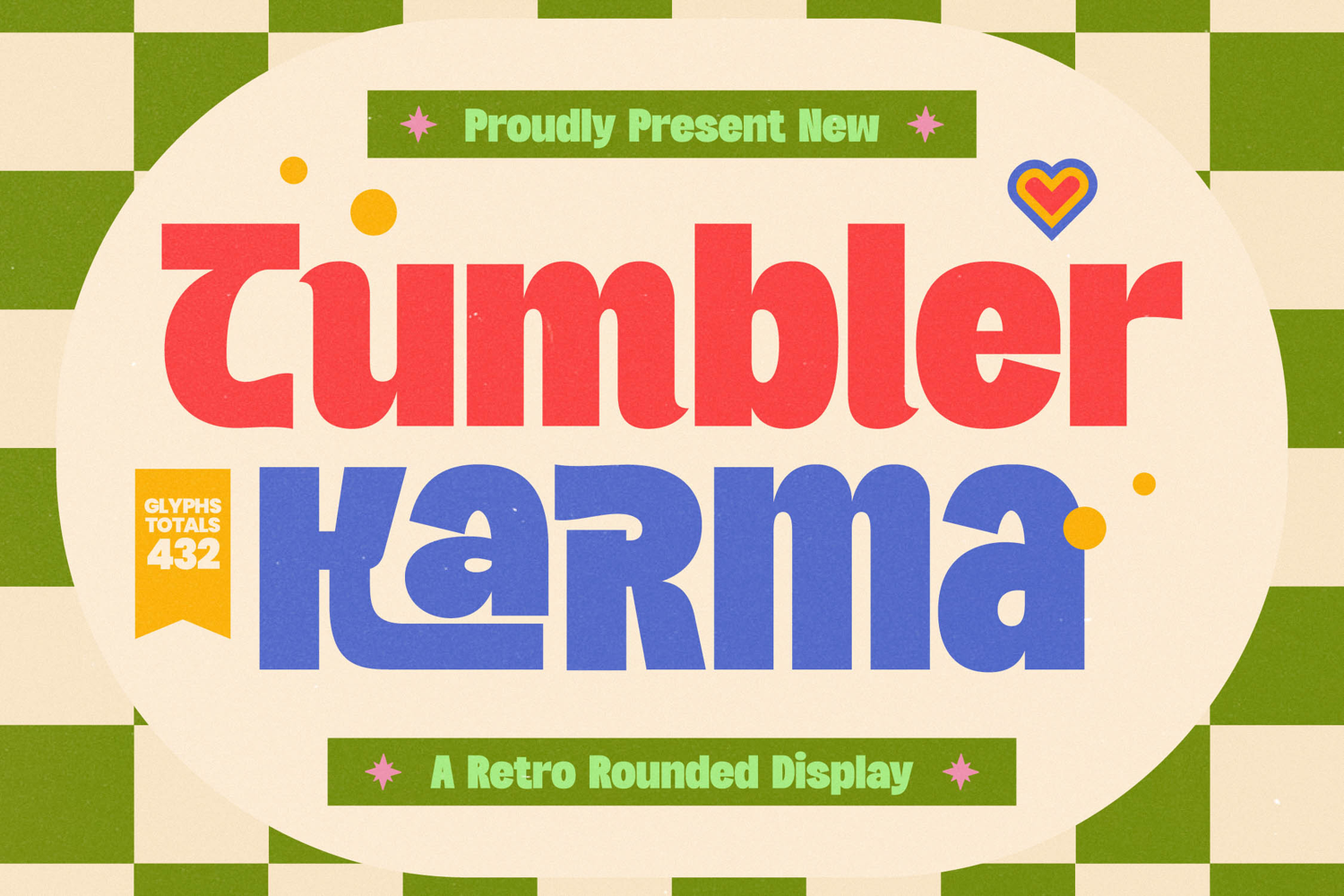
Tumbler Karma - Retro Rounded Display
Inject instant personality and nostalgic charm into your design work. Tumbler Karma - Retro Rounded Display stands out as the definitive statement typeface echoing the beloved 70s design movements. Its bold, heavy structure combined with soft, welcoming rounded terminals creates a compelling visual presence, blending vintage fun with modern clarity. This font is meticulously engineered for maximum display visibility, guaranteed to capture audience attention on dynamic digital and print platforms.